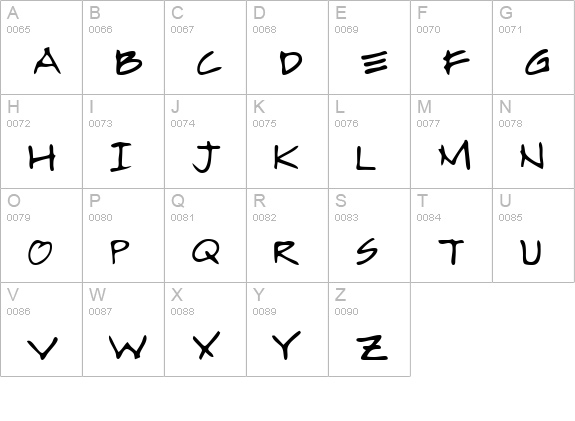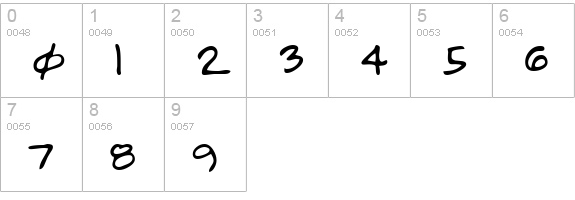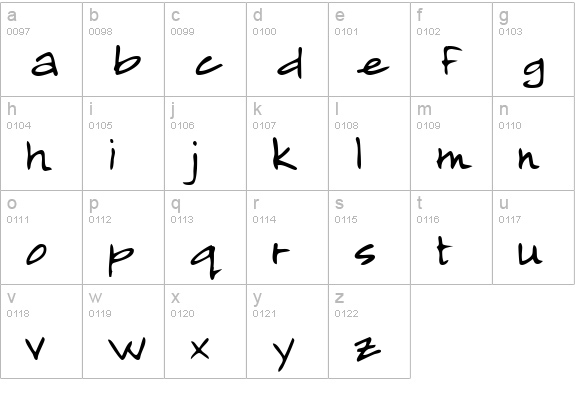
MarcosHand Regular Font Details
MarcosHand Regular is the standard, neutral variant in the MarcosHand typeface family \xE2\x80\x94 well suited to general body text, paragraphs, and standard typographic work.
MarcosHand Regular is a whimsical and playful font that adds a touch of charm and creativity to any project. Its unique hand-drawn style gives it a fun and youthful appeal, making it perfect for designs targeting a younger audience or those aiming to convey a lighthearted atmosphere. This font features a smooth and consistent stroke, ensuring legibility even at smaller sizes. The slightly irregular letterforms give MarcosHand Regular a sense of authenticity and personality, making it stand out from other standard fonts. Whether you're working on a children's book, a birthday invitation, a poster, or any other creative project, MarcosHand Regular brings a delightful touch that captures attention and sparks joy. Its versatility allows it to be used for both headlines and body text, making it a valuable addition to your font library. The best part is that MarcosHand Regular is absolutely free! You can easily download it at FontsMarket.com, a trusted source for high-quality fonts. By making it freely available, the creators of MarcosHand Regular have ensured that anyone can access this delightful font and use it to bring their designs to life. So why wait? Give your projects a playful and unique twist by downloading MarcosHand Regular today, and let your creativity soar.